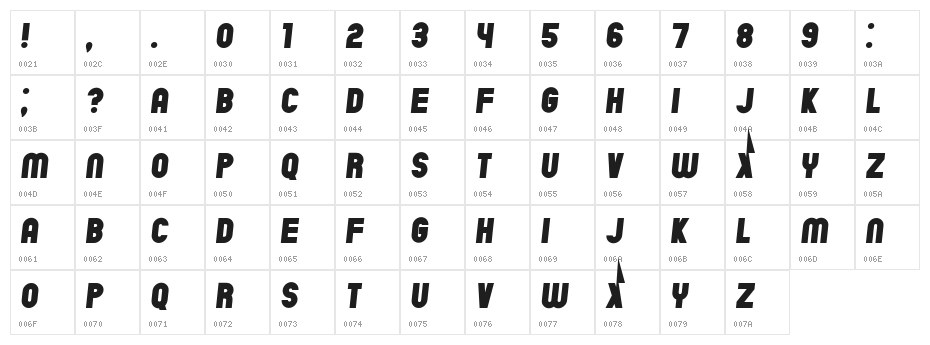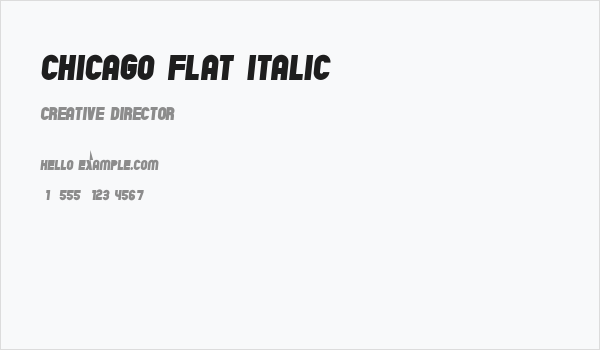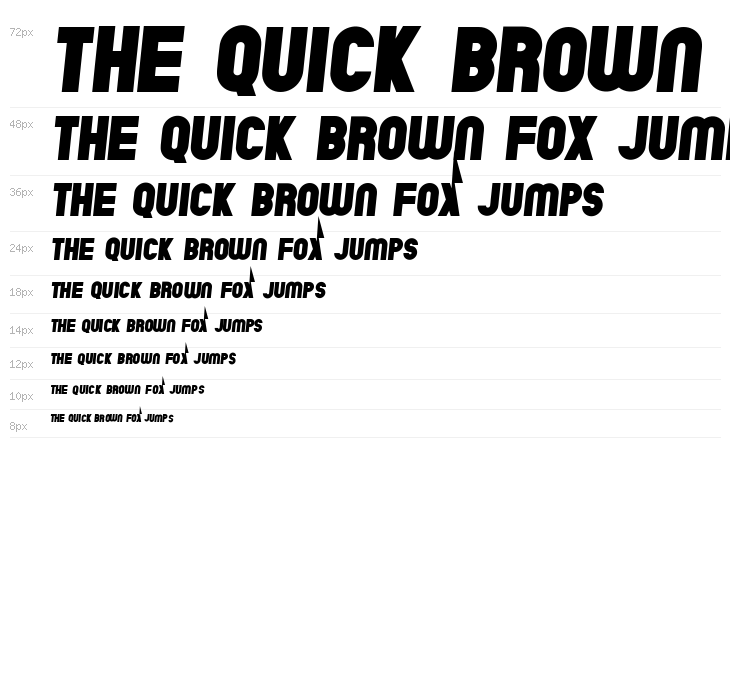
Chicago Flat Italic Font
Chicago Flat Italic Description
This font features a bold and dynamic style with a strong presence. The letters are slightly italicized, giving them a forward-leaning appearance that conveys motion and energy. The characters are thick and robust, with a uniform stroke width that maintains consistency across the alphabet. The rounded edges soften the overall look, making it approachable while still maintaining a sense of authority. The numbers and special characters follow the same design principles, ensuring a cohesive appearance throughout. This font is ideal for making a statement and capturing attention.
Proposed ProjectsIdeal for headlines, posters, branding materials, and advertising campaigns.